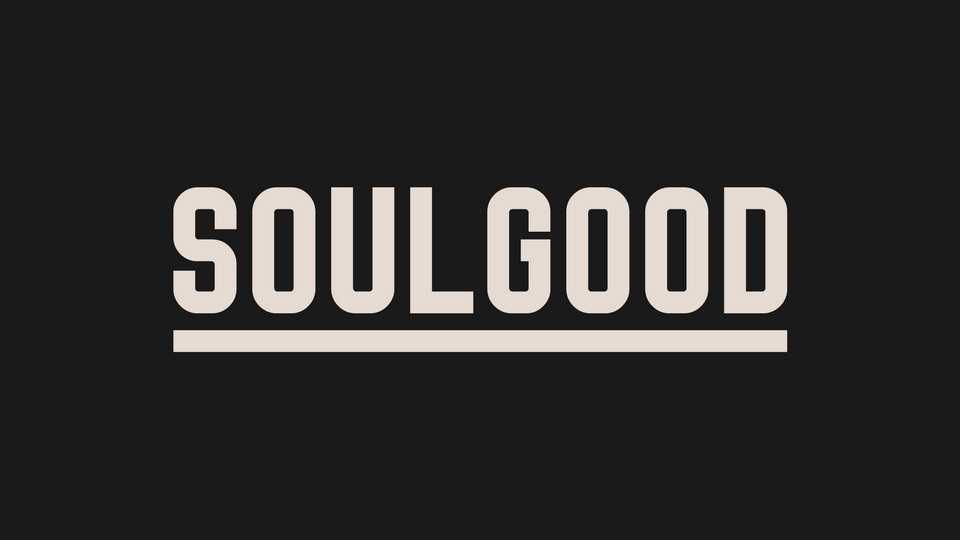
Download Soulgood font, a sans serif typeface that adopts a modern and strong style. The curves in some of the letters make the Soulgood to look beautiful and charismatic